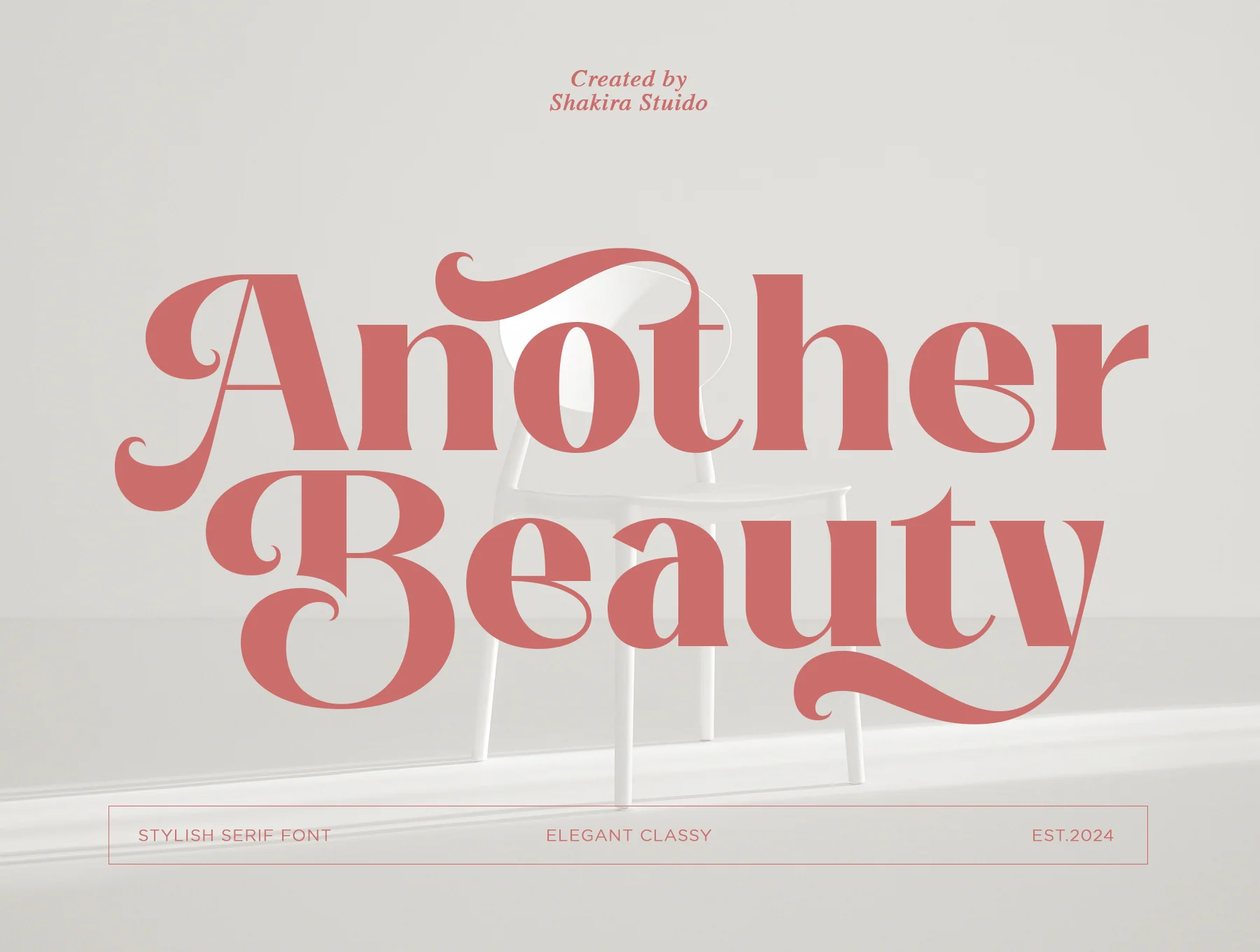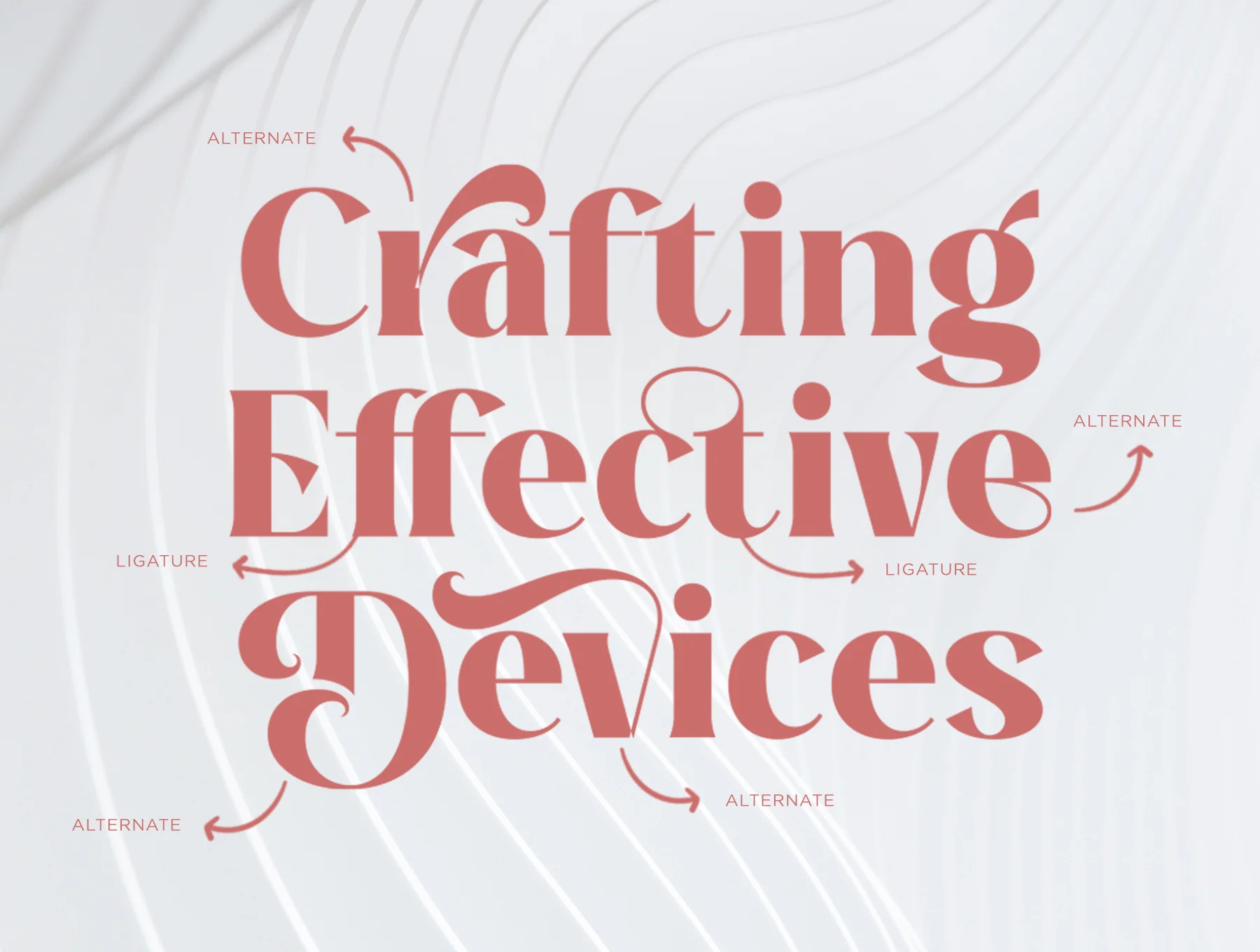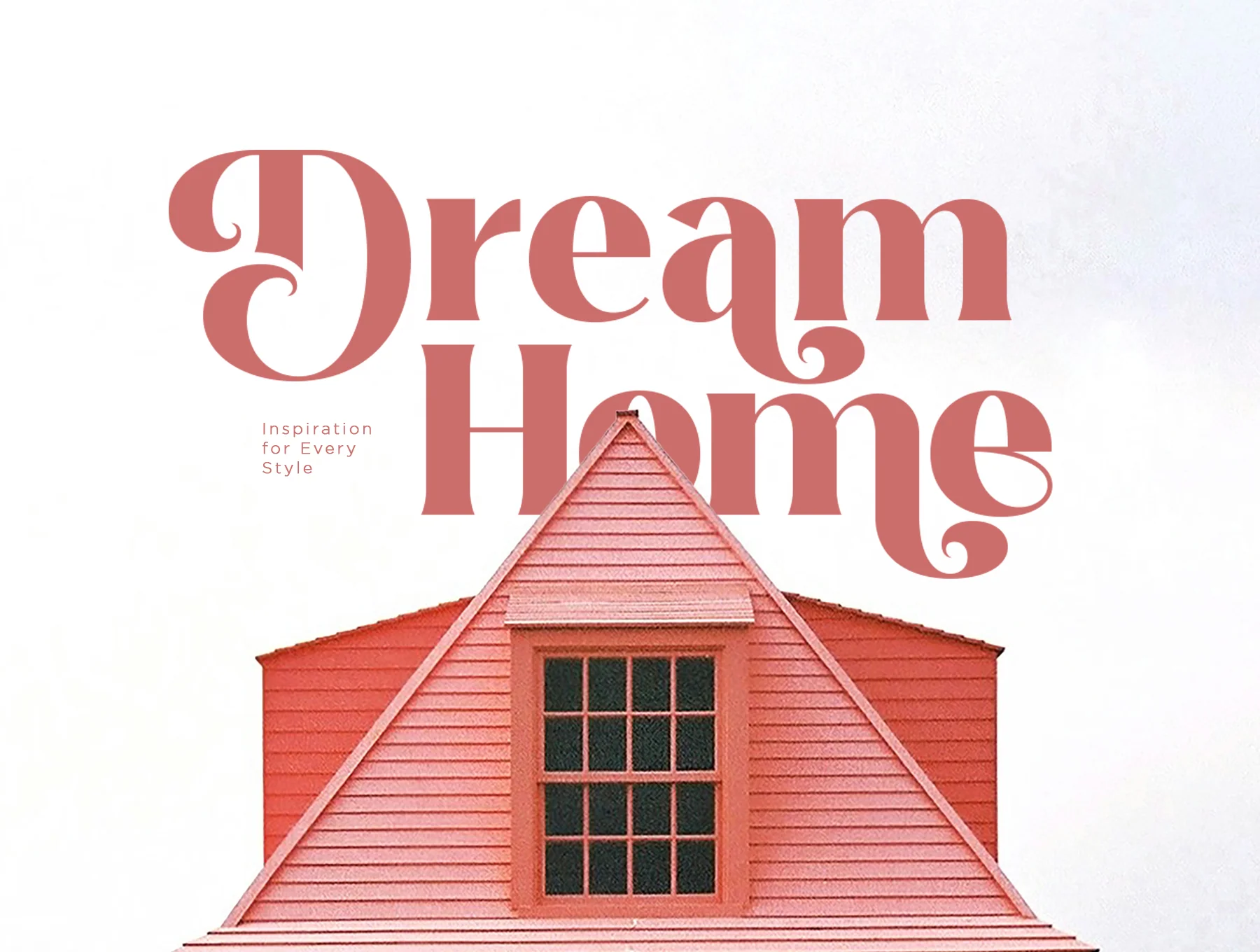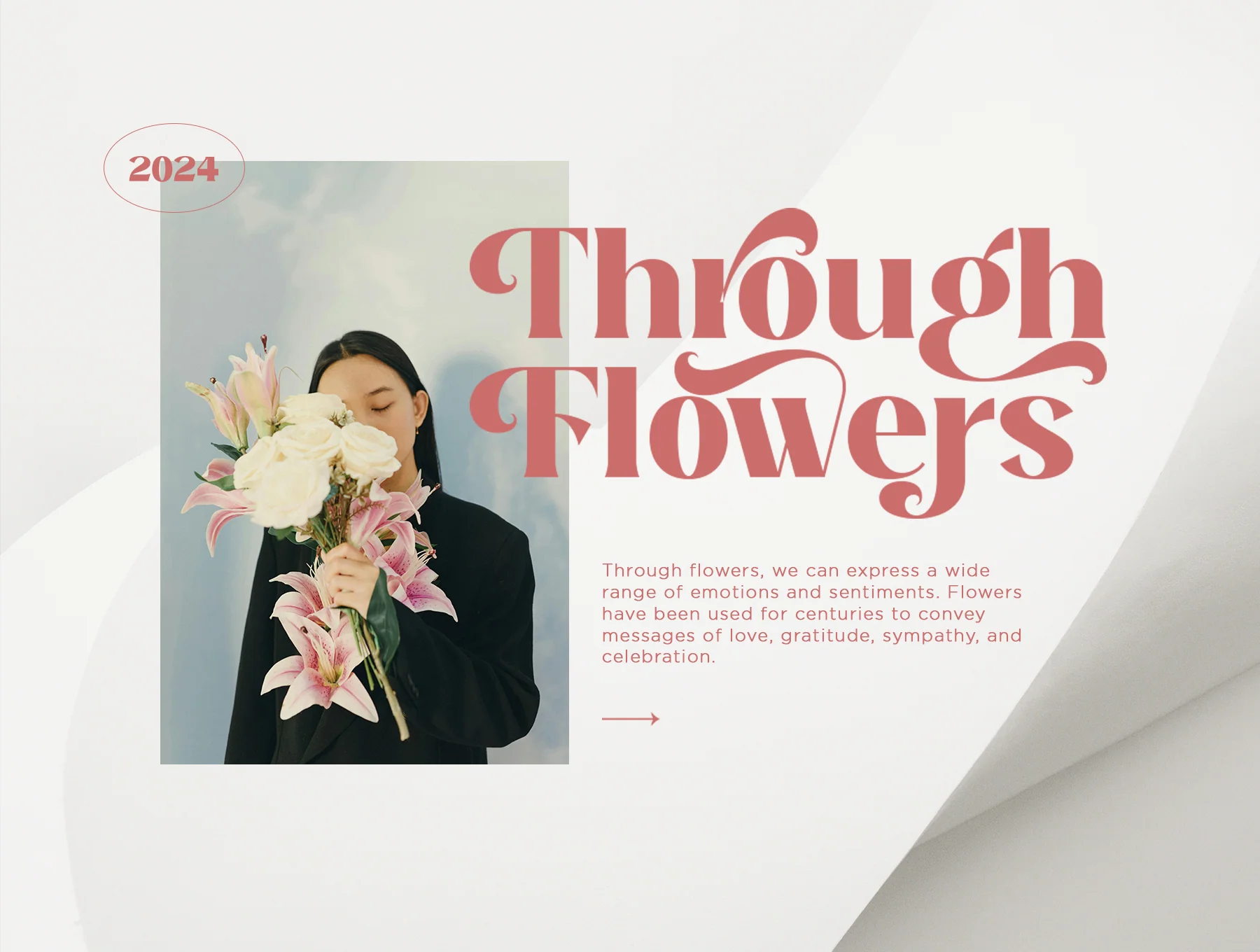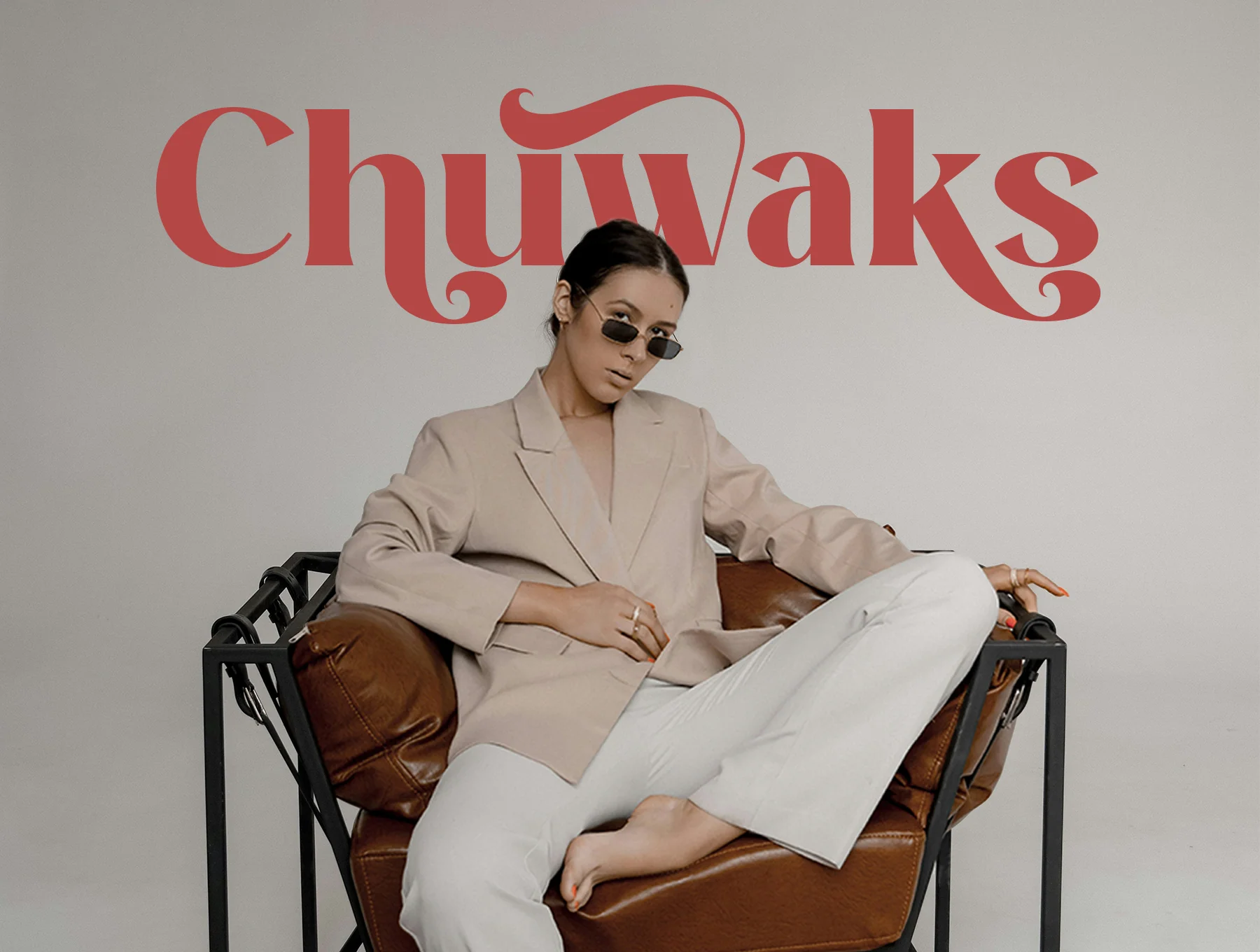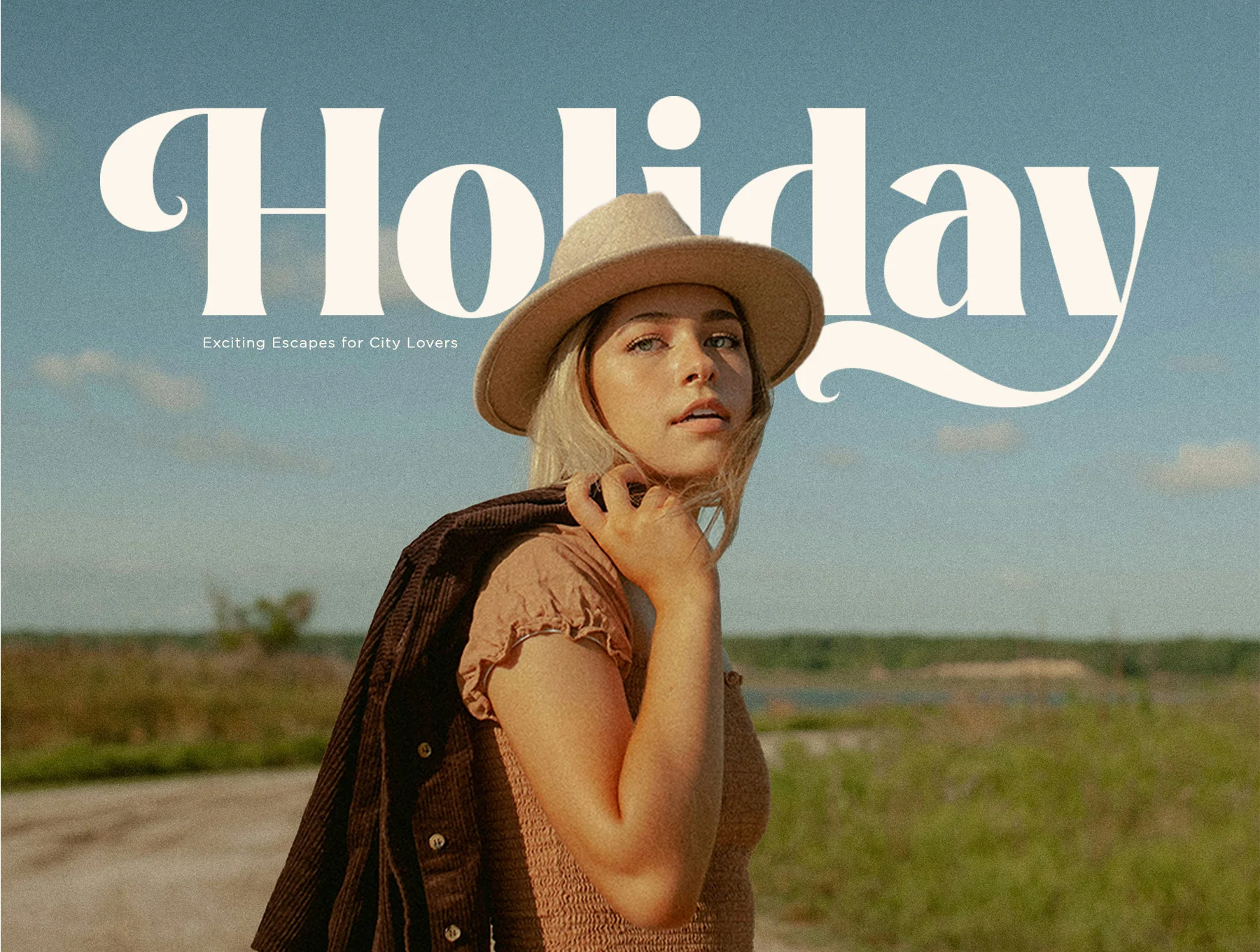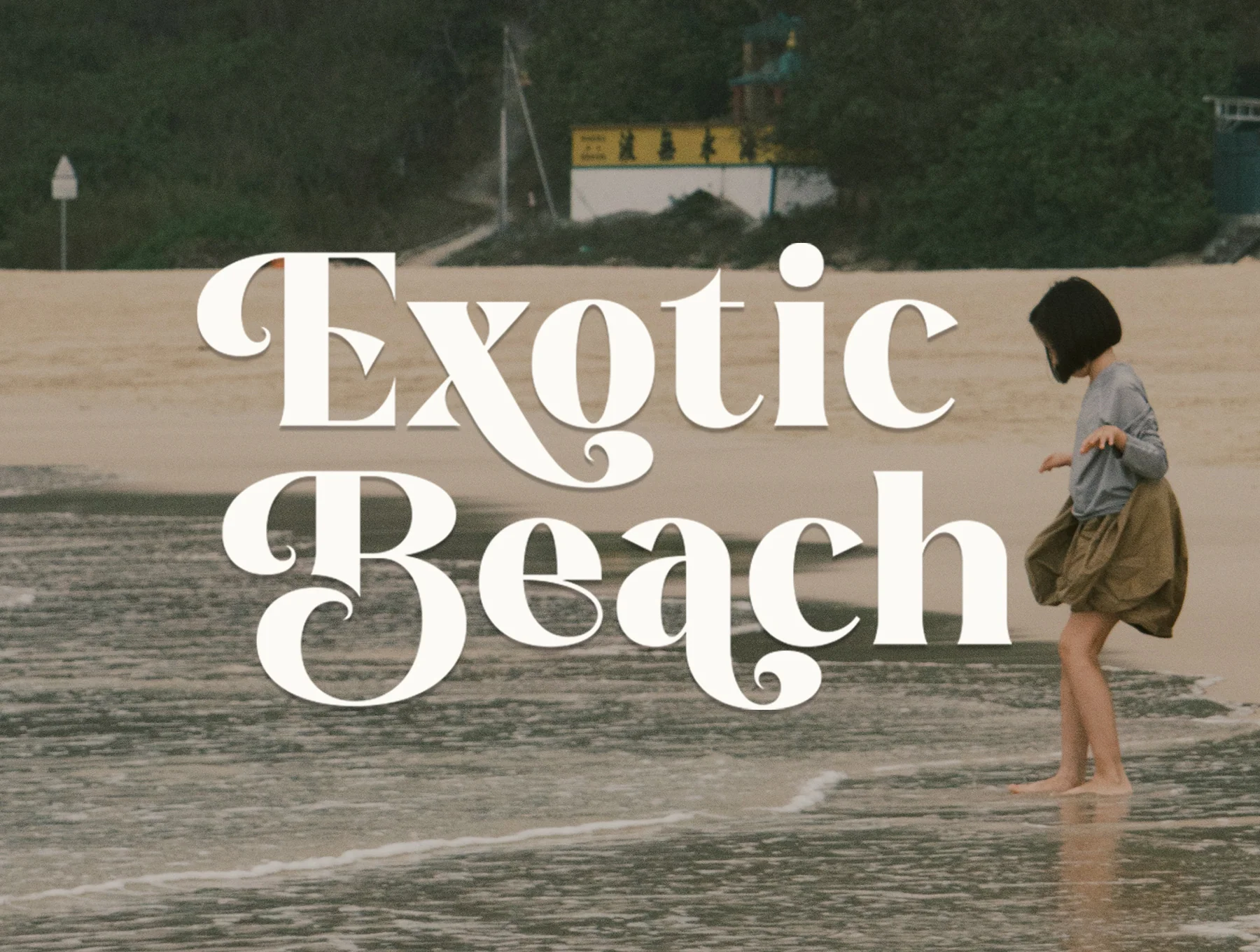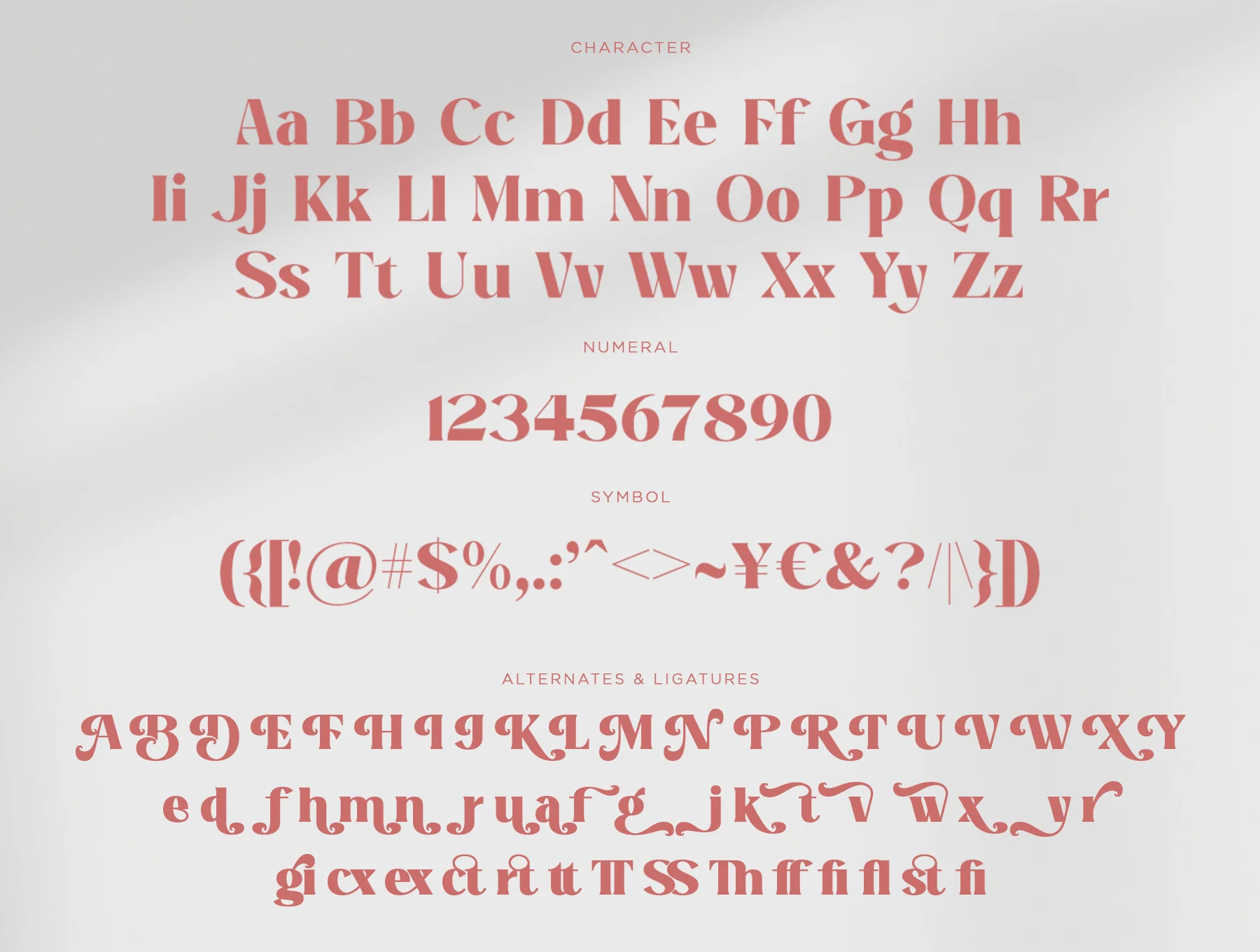
Another Beauty - Stylish Serif Font
Chic Serif Typeface, Refined & Sophisticated
Basic letters from A-Z and a-z
Numerals and practical characters
Alternates plus ligature options
Another Beauty is a refined serif typeface for polished, timeless designs. Use it for logos, branding, invitations and more. Includes Regular and Italic in OTF, TTF and WOFF, multilingual support, OpenType ligatures and alternates, plus PUA encoding. Works with Illustrator, Photoshop, InDesign and Microsoft Word. Follow the shop for future releases.